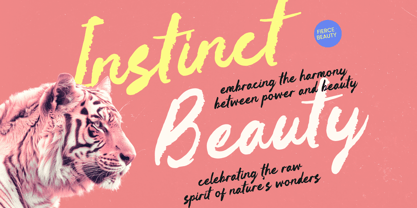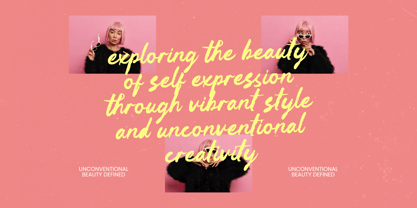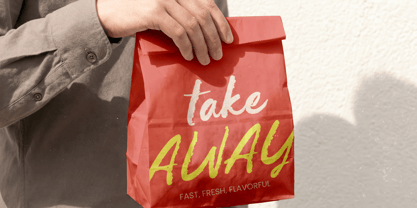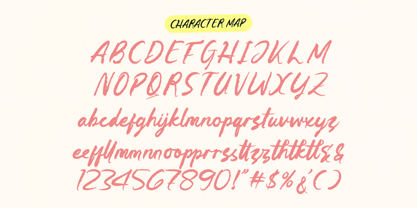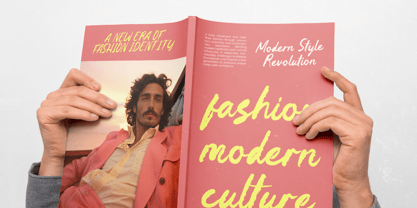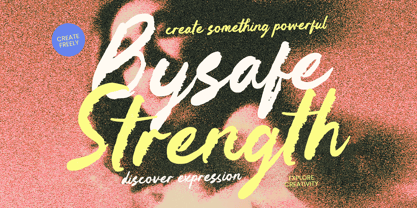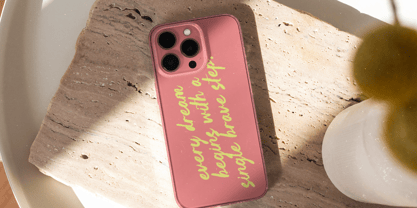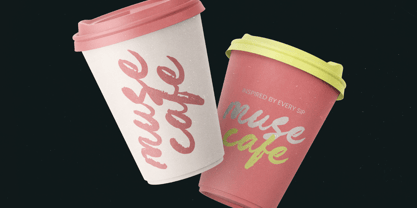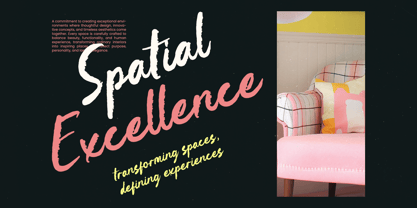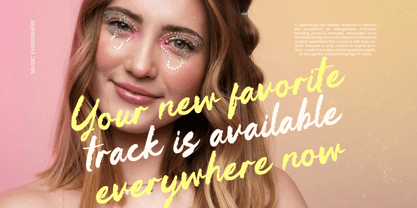
Bysafe Strength
par Stylishtype Studio
La famille de polices Bysafe Strength a été conçue par Heru Utama Putra et publiée par Stylishtype Studio. Bysafe Strength contient 2 styles et options de package familial. En savoir plus sur cette famille
Command attention with the raw energy and unapologetic boldness of Bysafe Strength - Bold Brush Font. Designed to capture the authentic texture of hand-painted strokes, this typeface exudes a dynamic aesthetic that feels both modern and rebellious. The high-impact visuals and organic flow of each character ensure that your messaging stands out with a distinctive personality, making it an essential tool for designers seeking to inject raw emotion into their layouts.